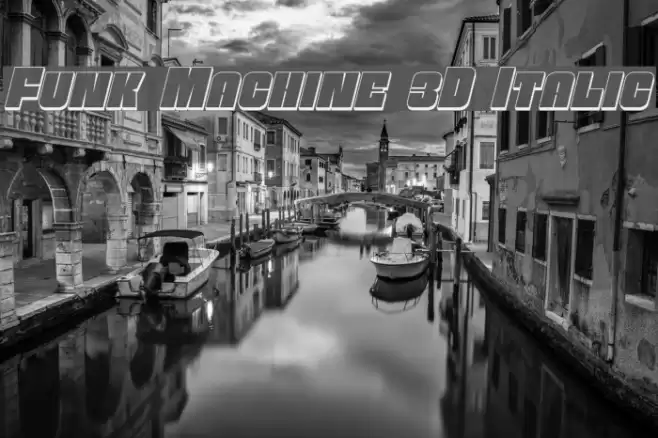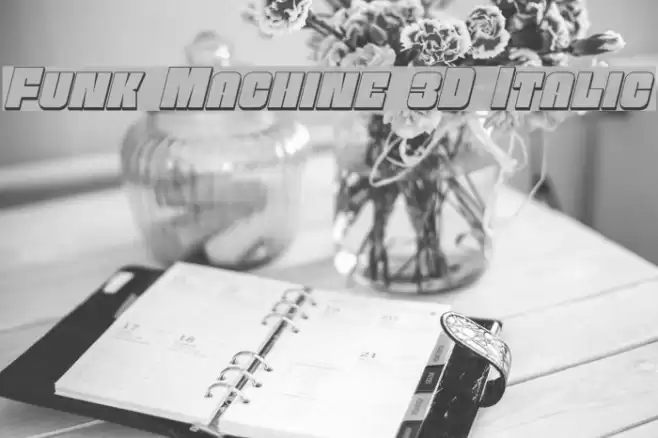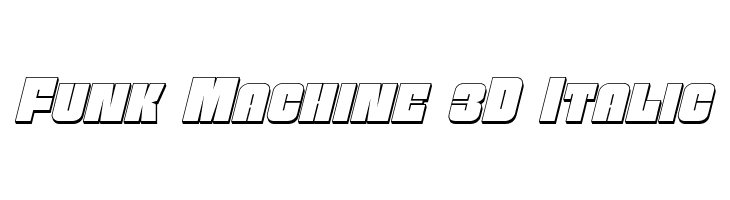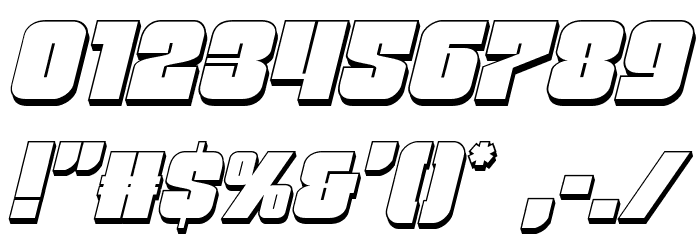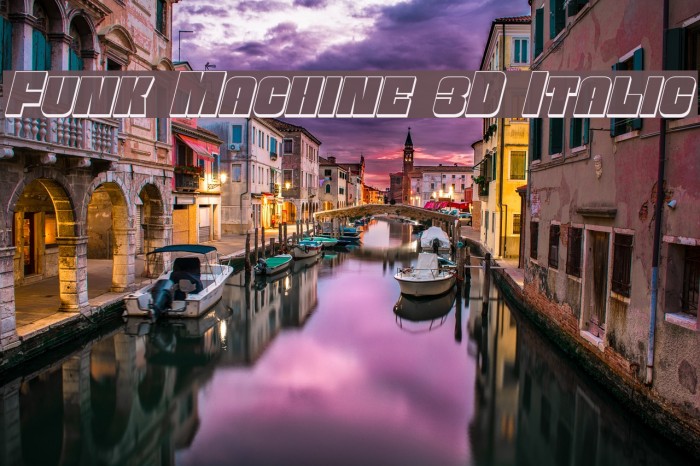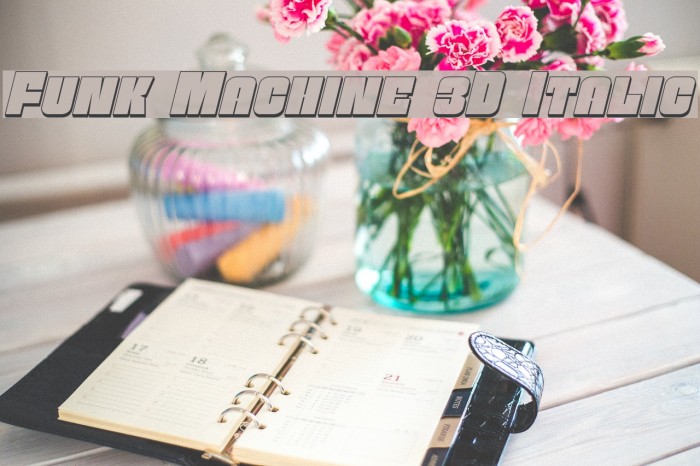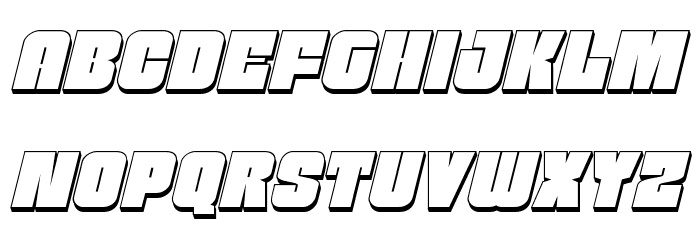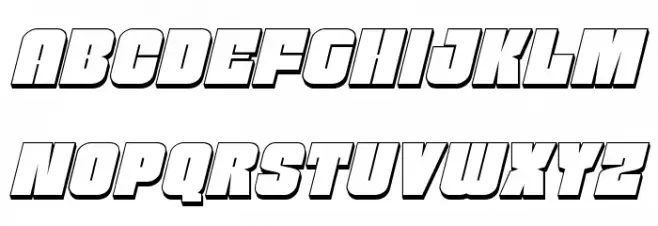
Funk Machine 3D Italic
This font features a bold, three-dimensional style with a distinct italic slant, giving it a dynamic and energetic appearance. The characters are blocky and robust, with a strong presence that makes them stand out. The 3D effect is achieved through a clever use of shading and perspective, adding depth and a sense of movement. This font is ideal for projects that require a bold statement or a futuristic look. It includes a full set of uppercase and lowercase letters, numbers, and a variety of special characters, making it versatile for different design needs.
A bold, 3D italic font with a dynamic and futuristic style.
- Proposed Projects: Ideal for posters, video game titles, branding, and any project needing a bold, futuristic look.